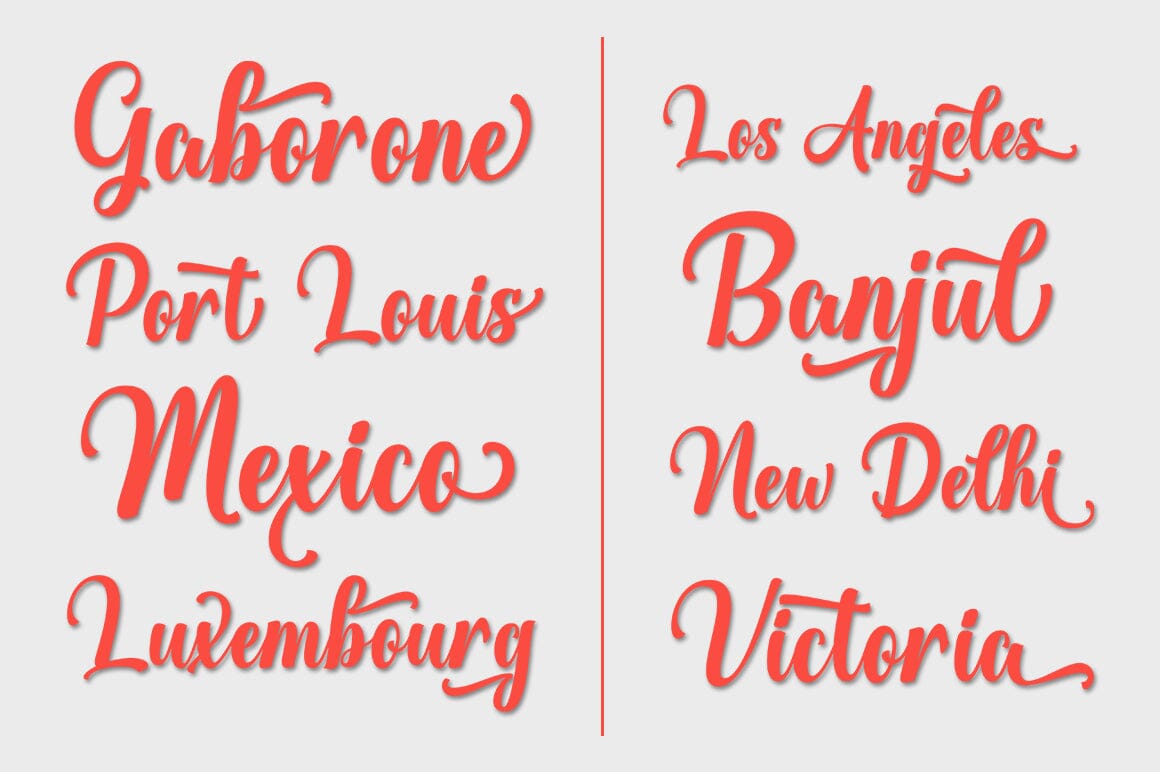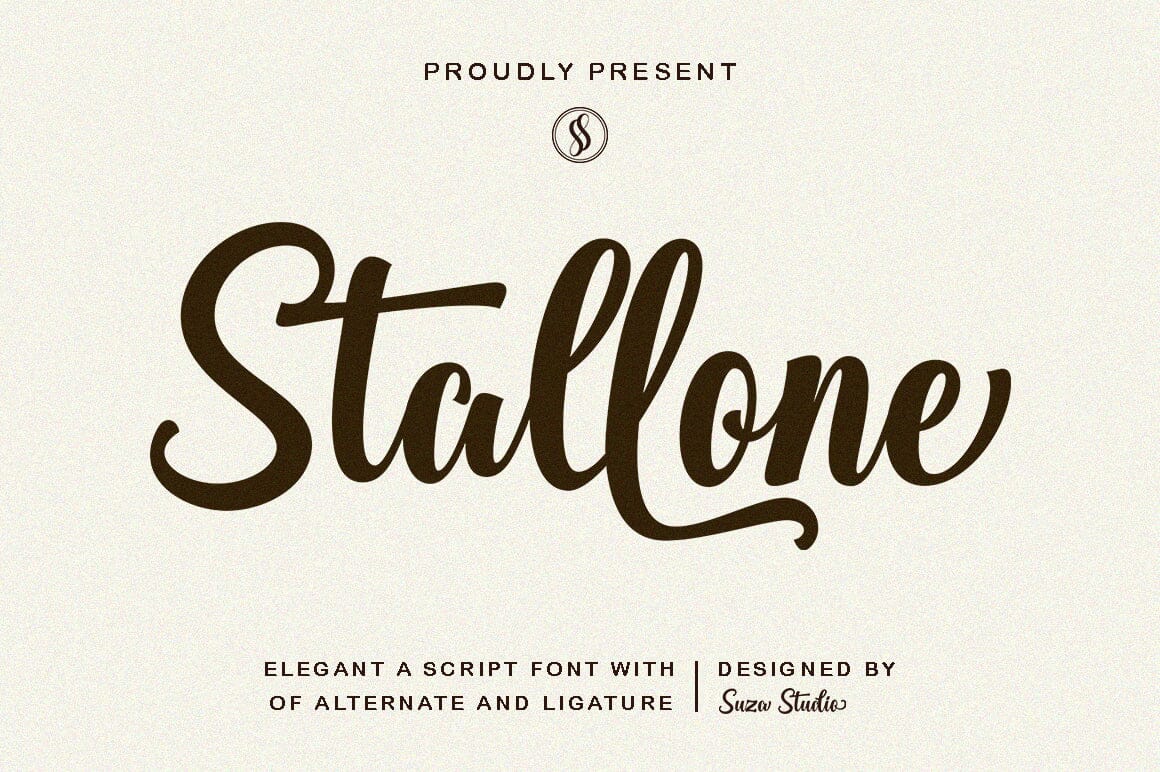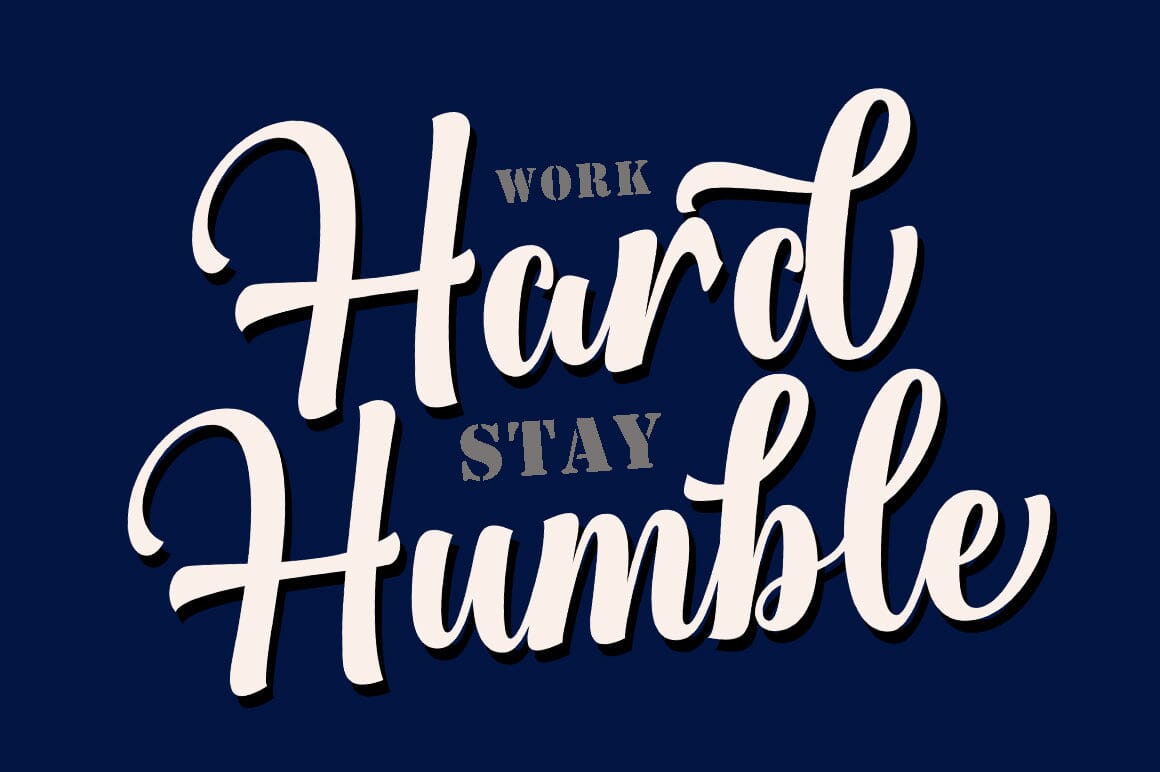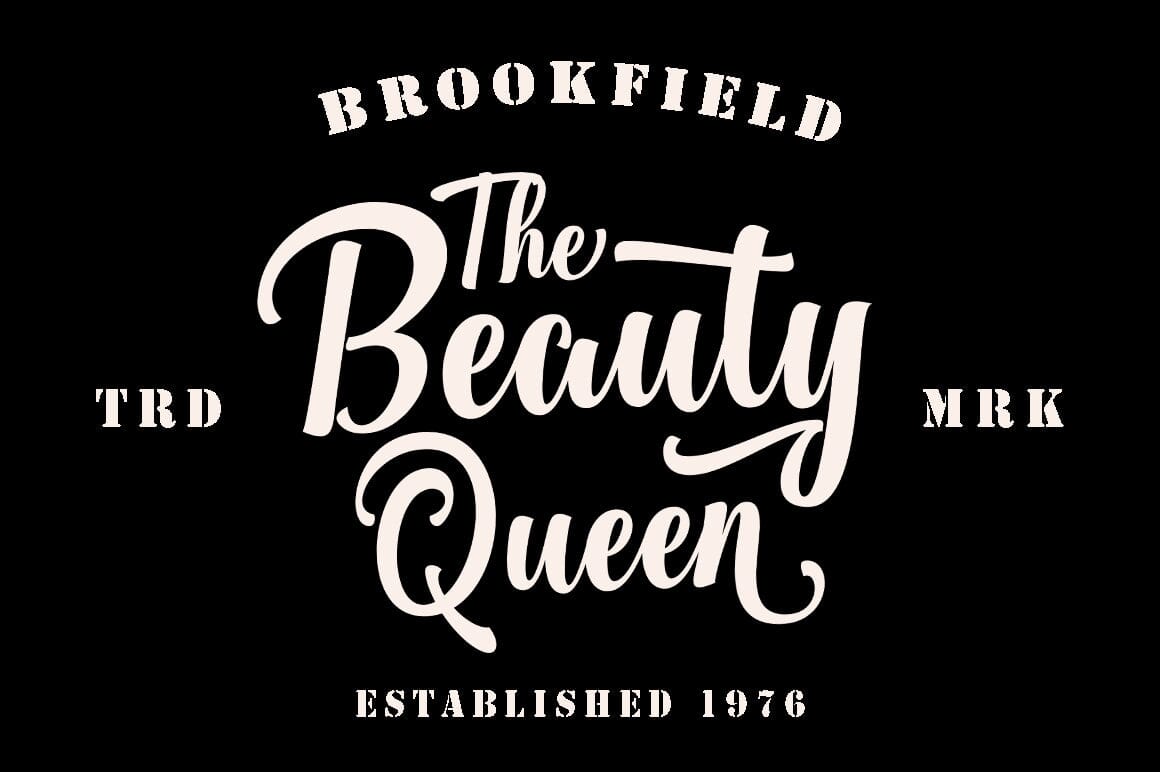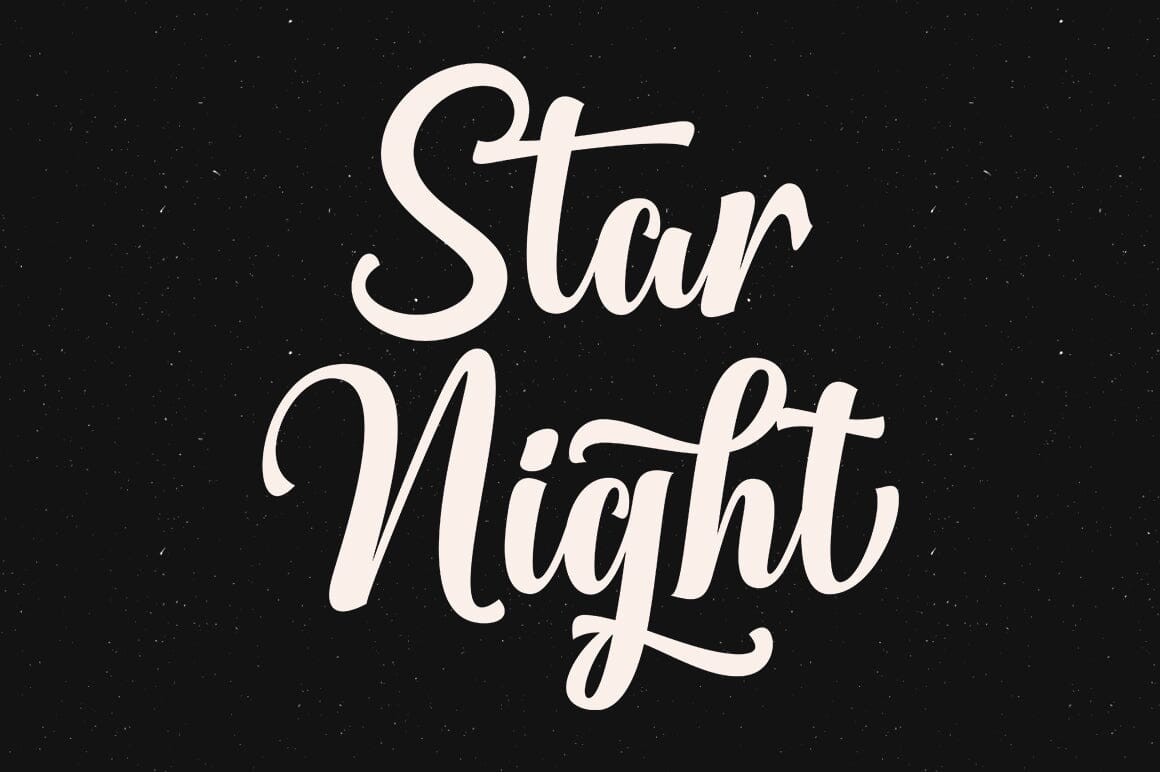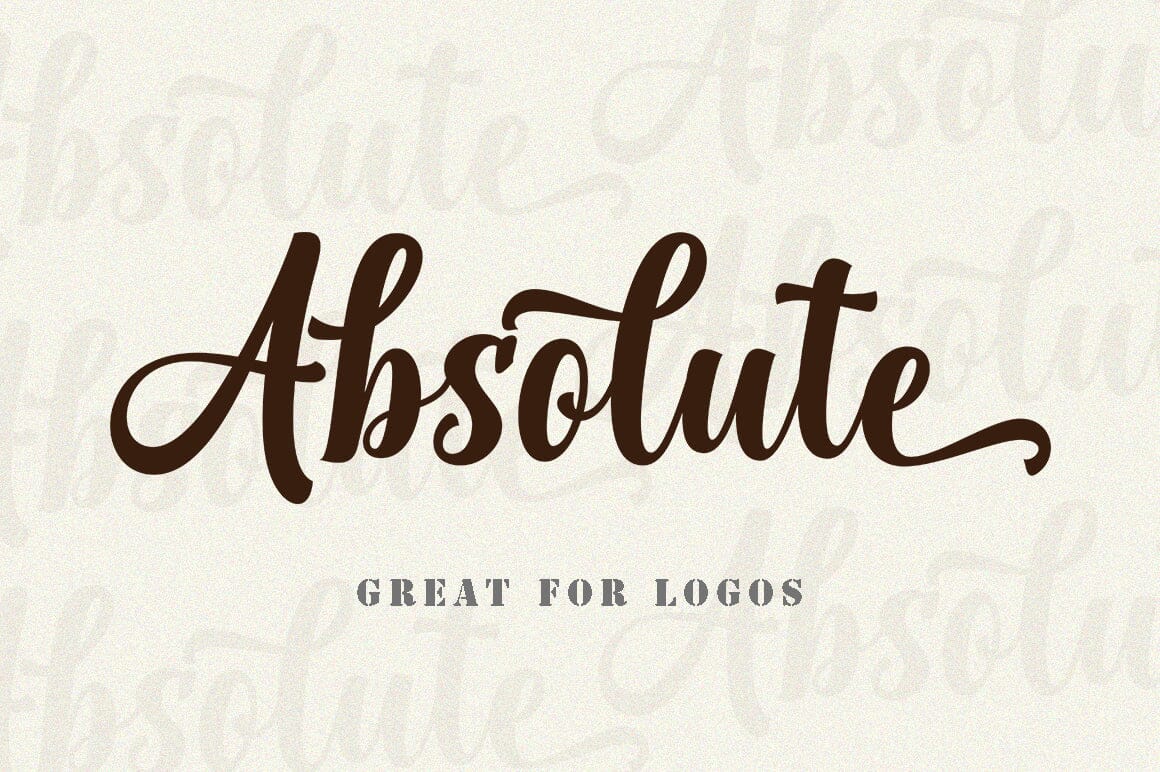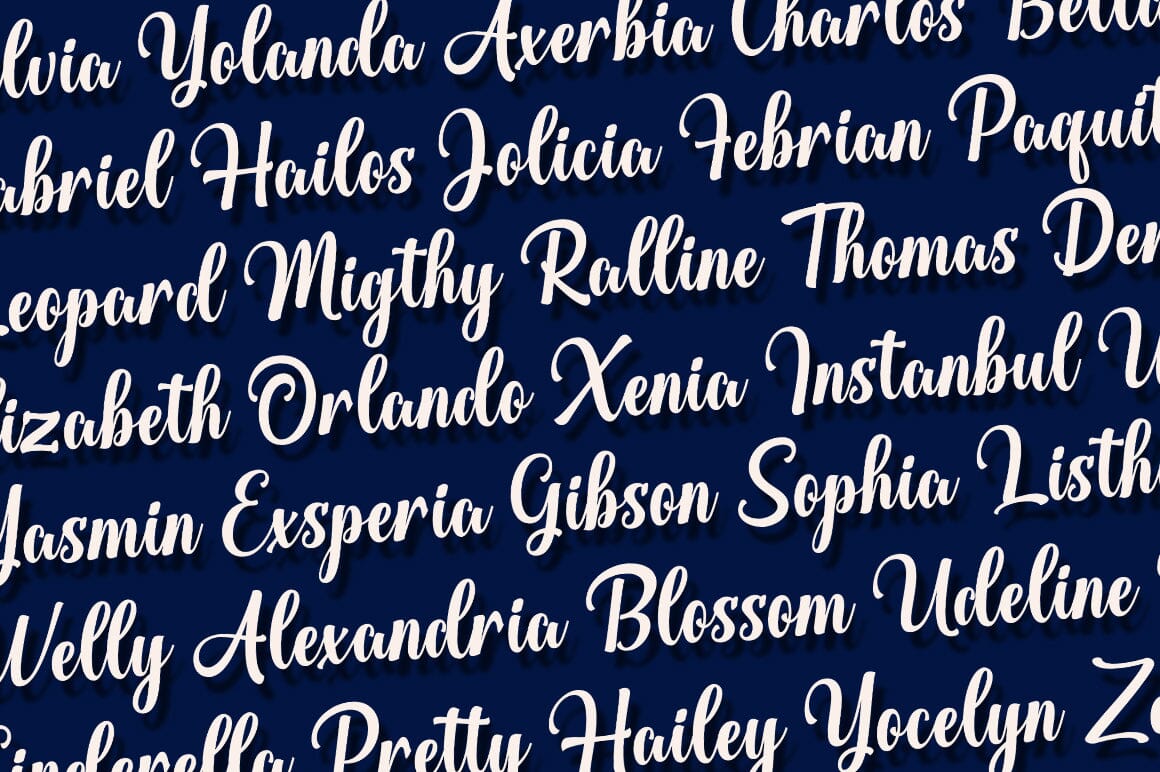
Stallone
Introducing – Stallone Elegant A Script Font By Suza Studio It is my pleasure to present the Stallone Font Stallone is an elegant script font with 265 glyps Stallone is perfect for product packaging, branding projects, megazines, social media, weddings, Logo Design or simply used to express words in the background. These fonts include ; Stallone OTF/TTF Also Multilingual Support Thank you, Enjoy It.😊